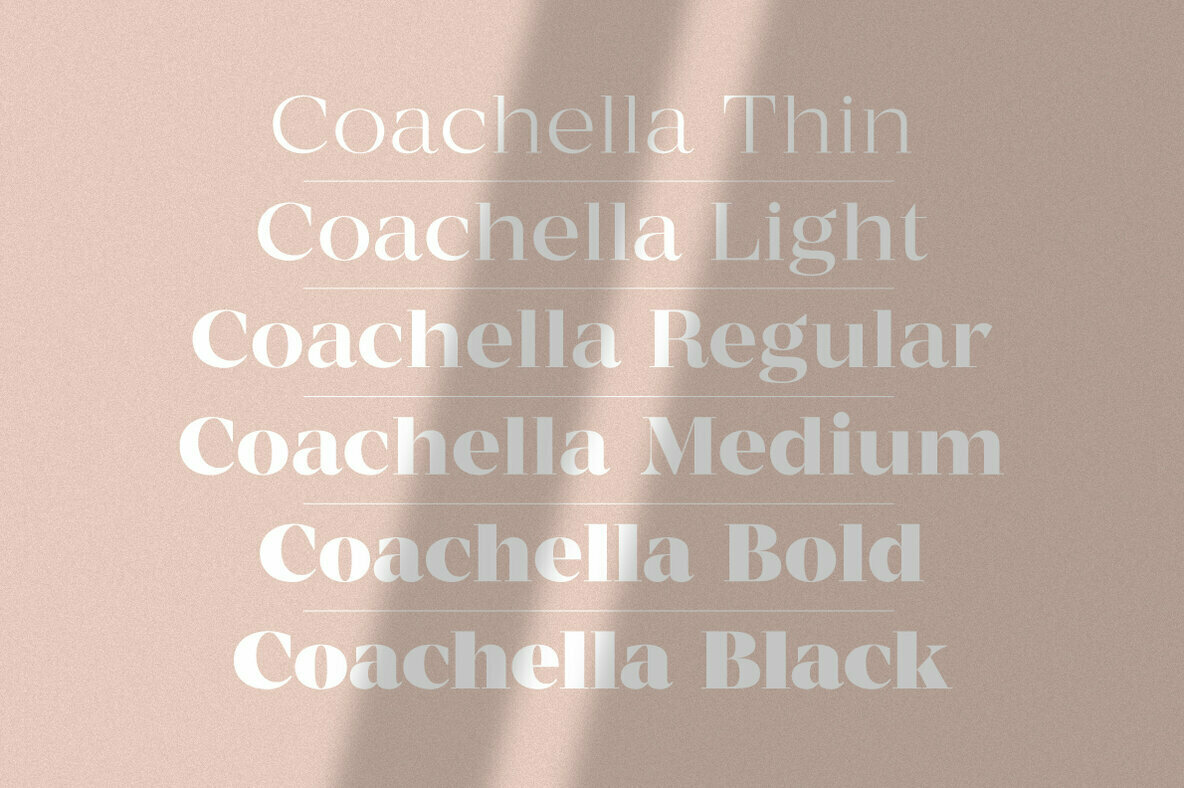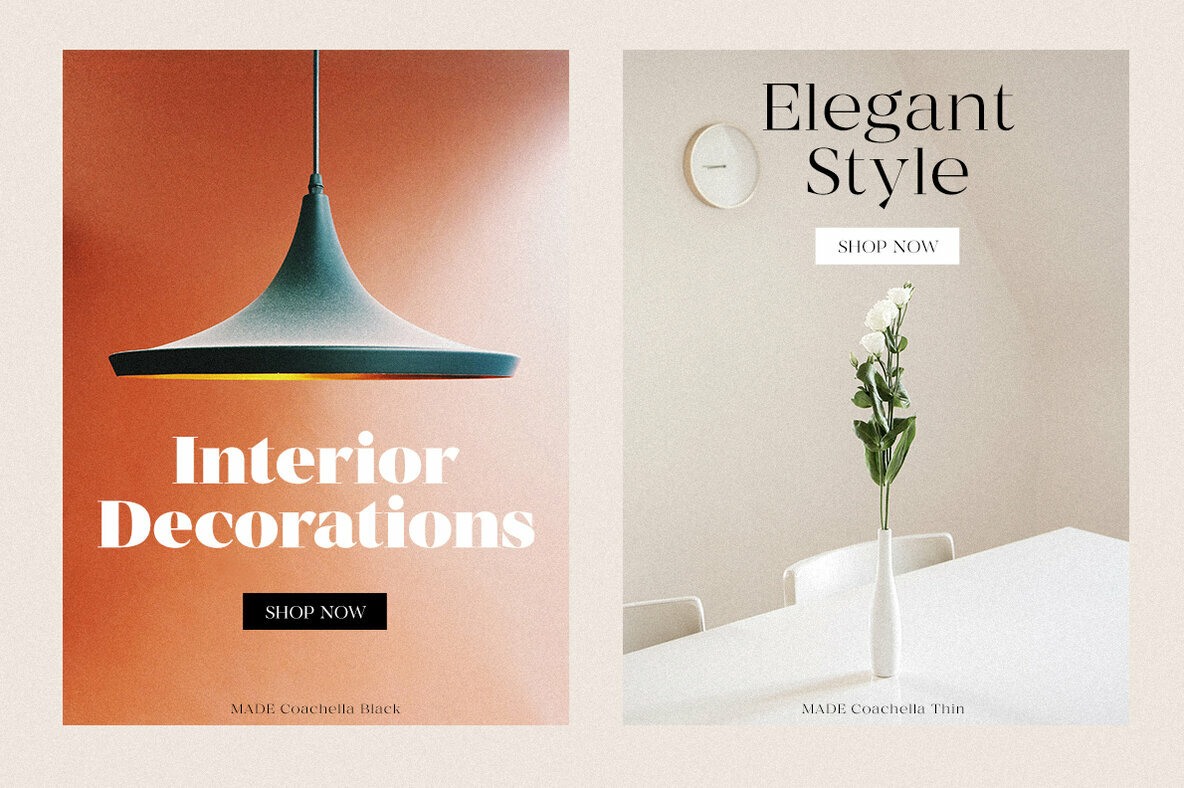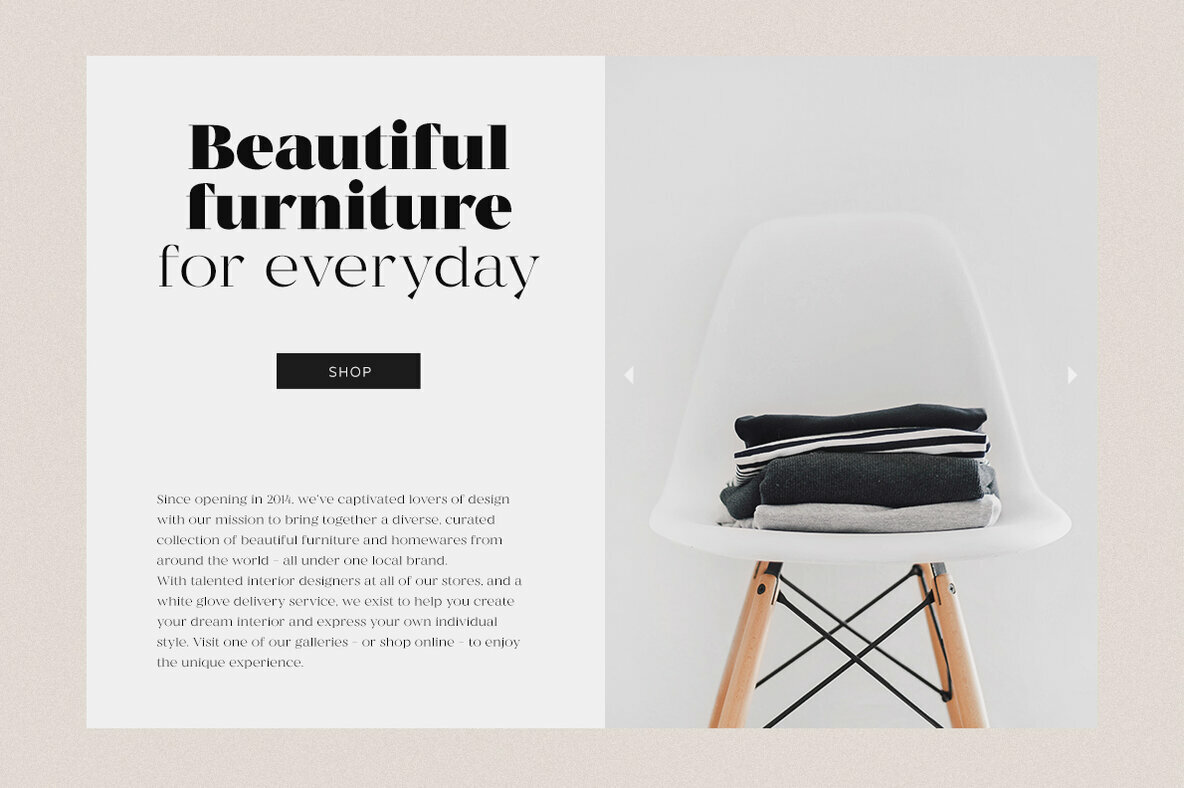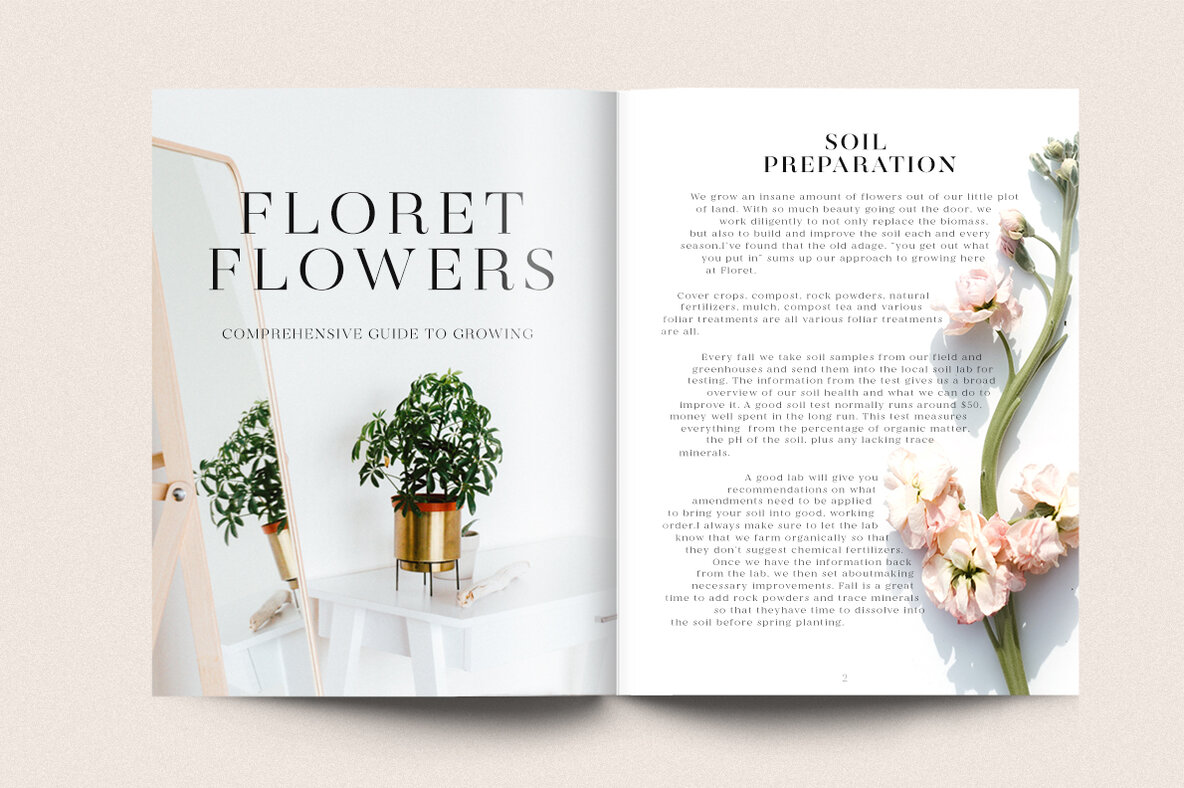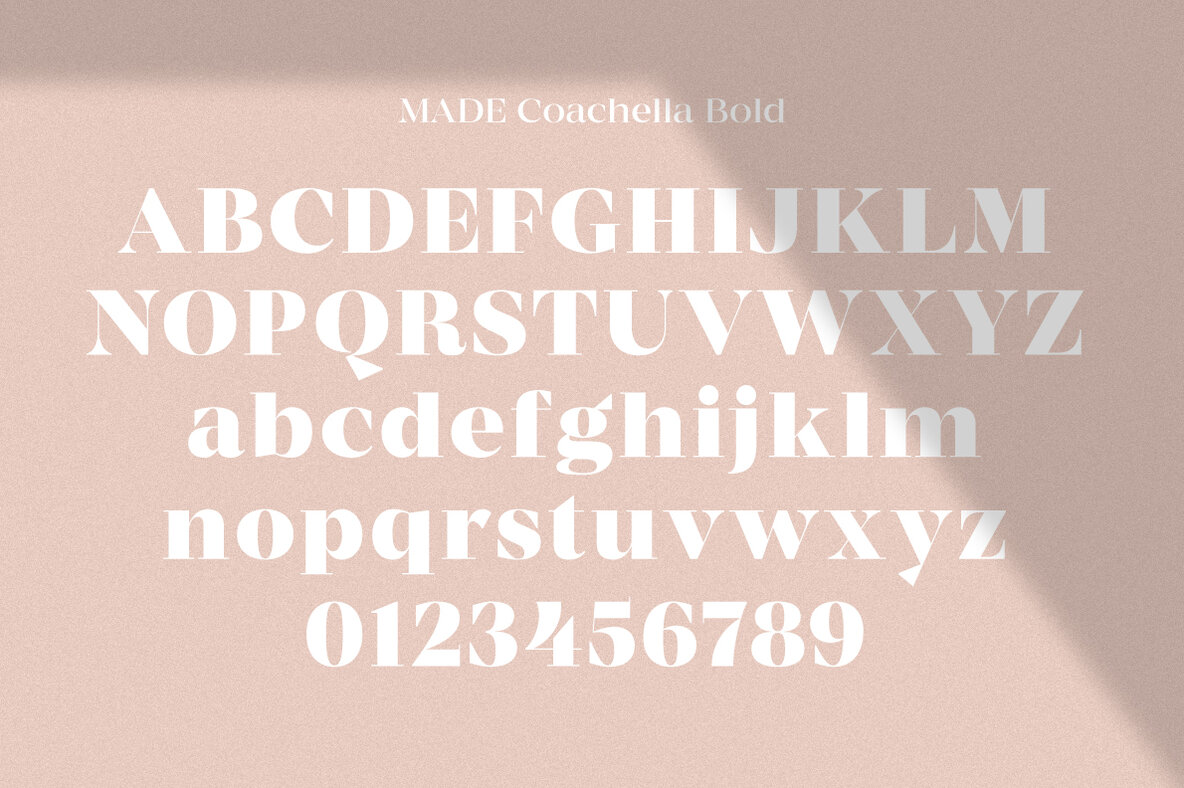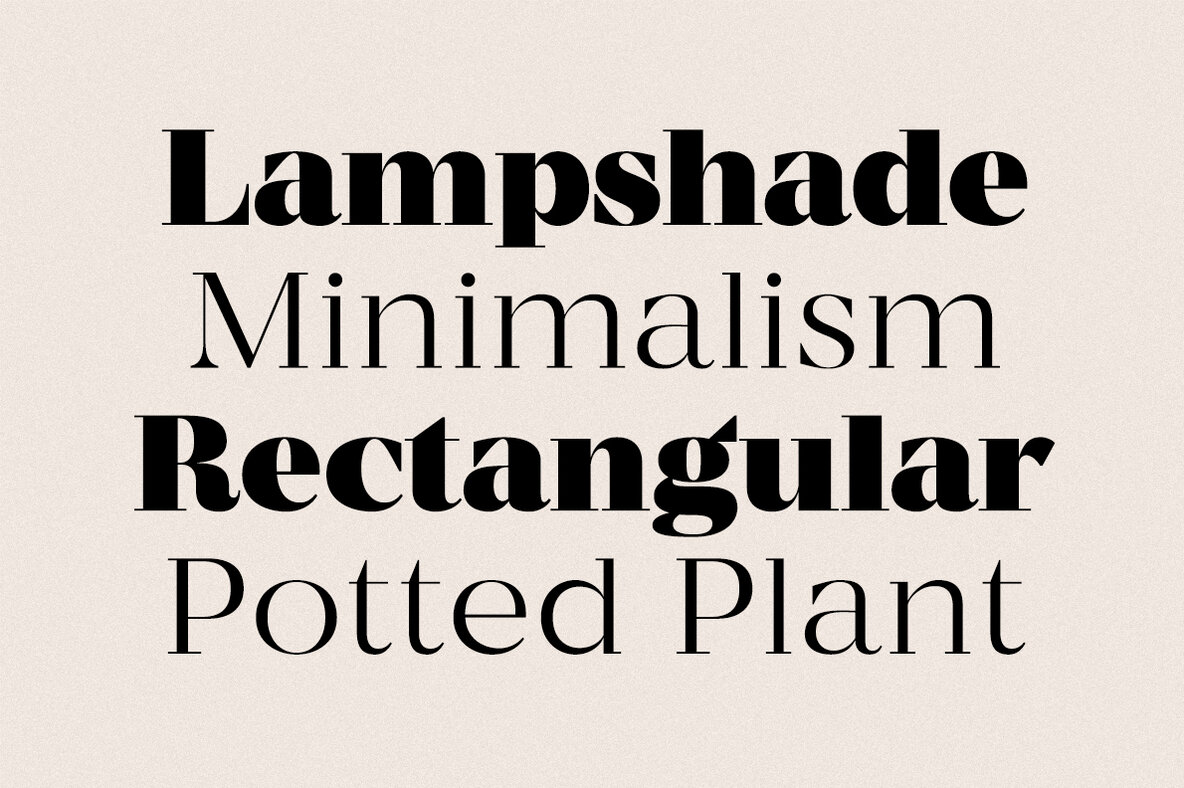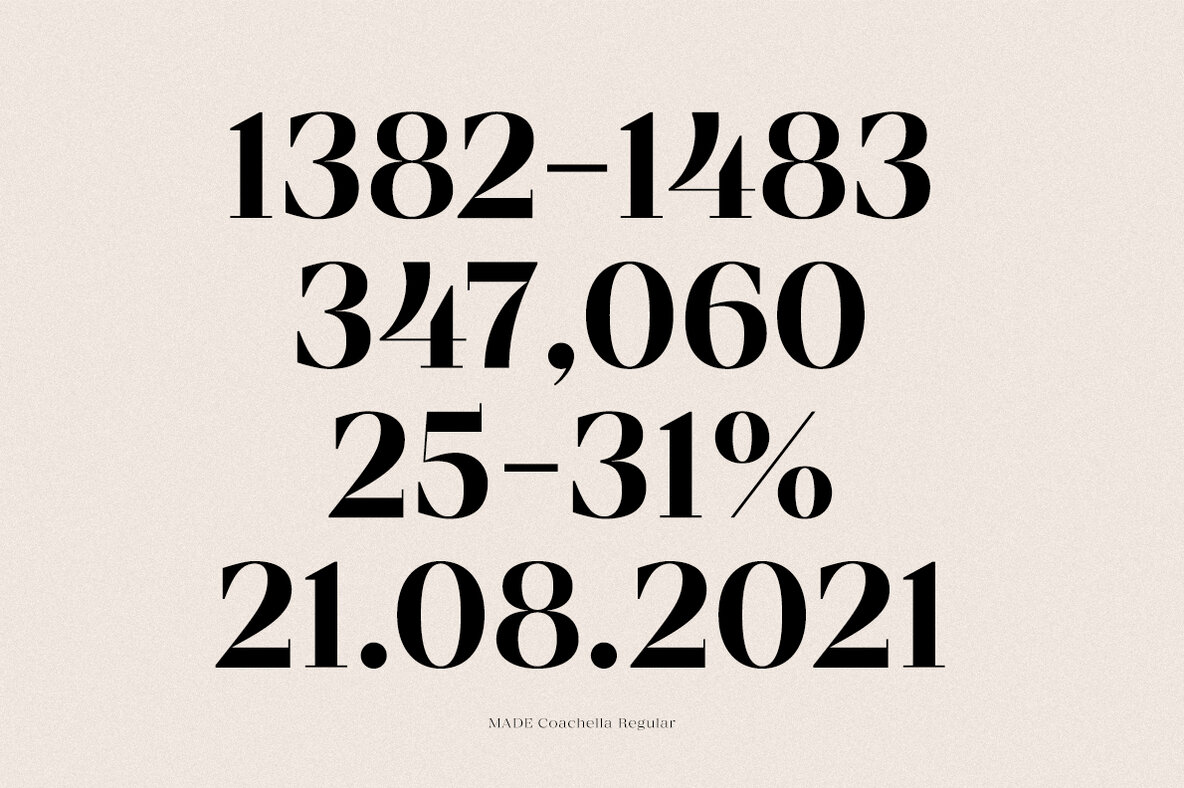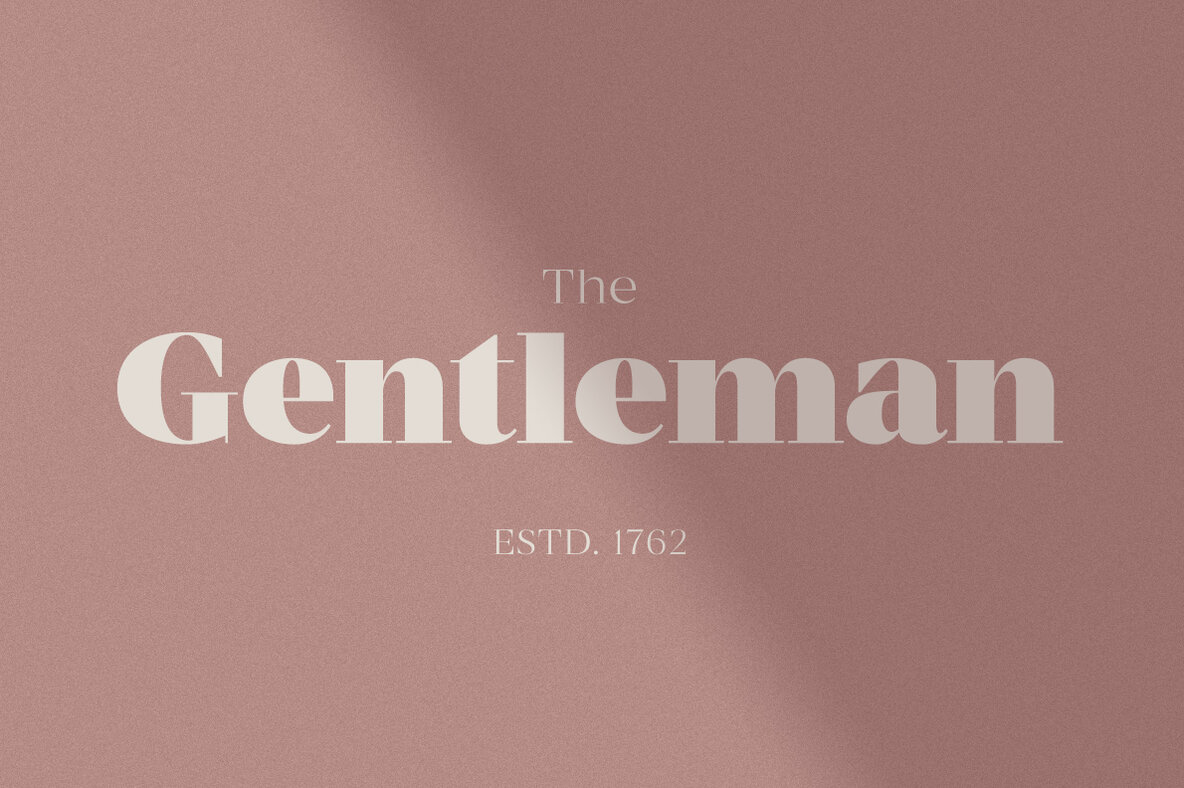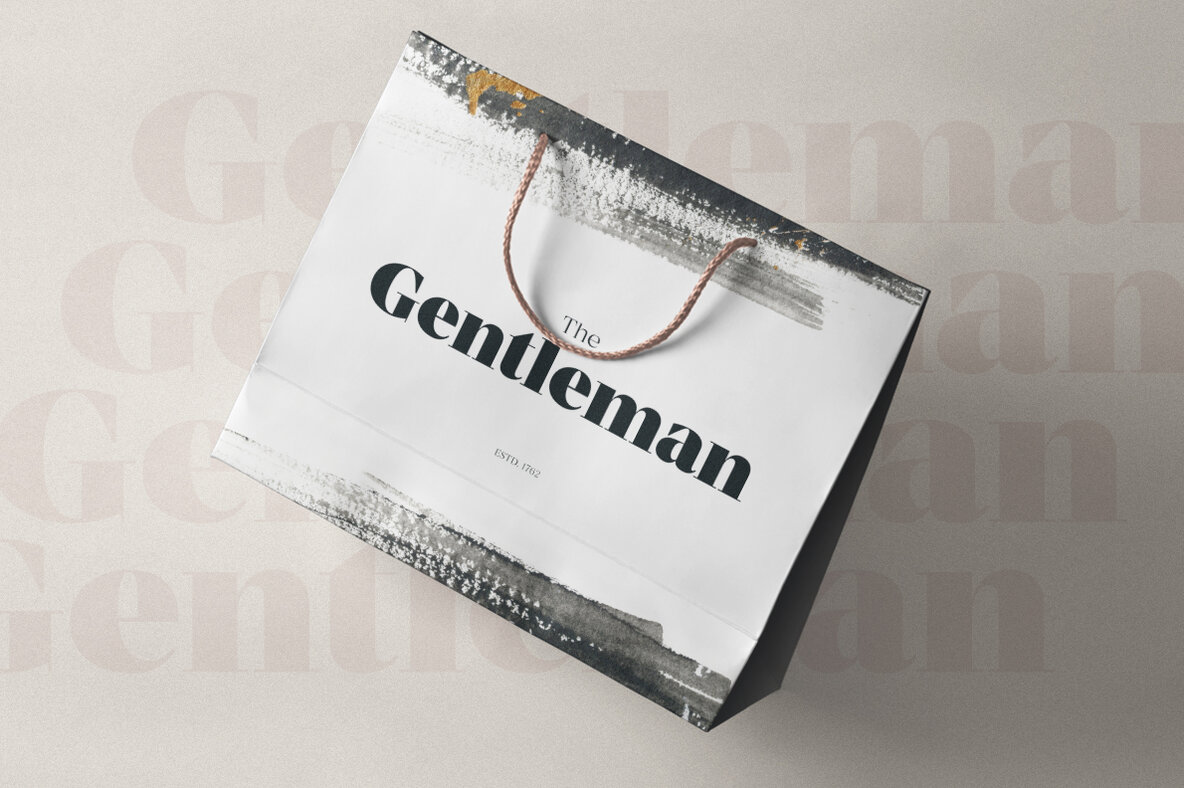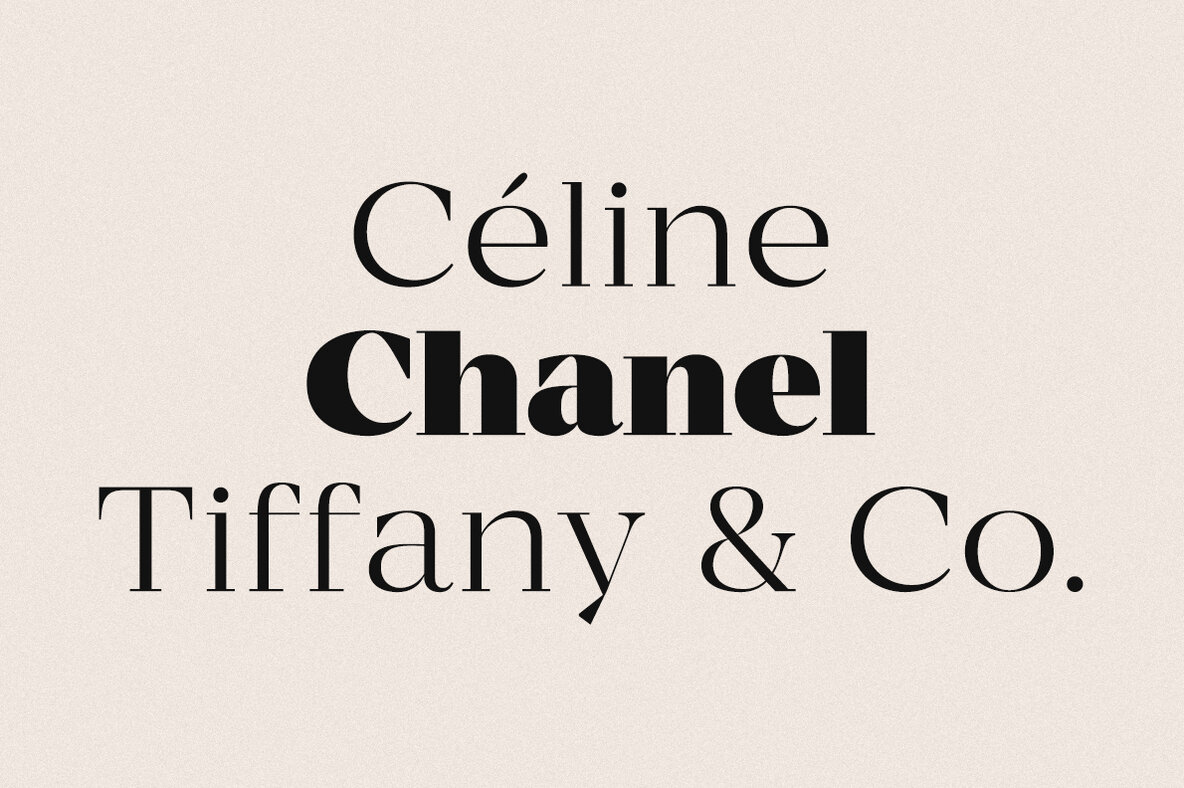
MADE Coachella Font
The MADE Coachella serif font family offers a distinctive elegance suitable for a wide range of creative projects. Designed with fashion-forward and aesthetically driven contexts in mind, this font brings a touch of sophistication and versatility.MADE Coachella: A Stylish Contrasting Serif